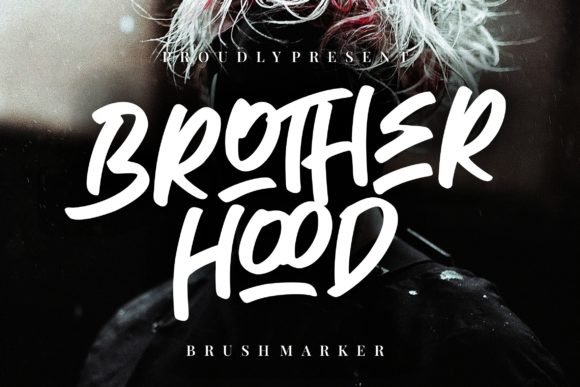
The Brotherhood Font: A Cool Brushed Display Font for Your Creative Projects
Have you ever been in the middle of a design project, and suddenly, you’re stuck on finding the perfect font? I recall a recent experience where I was working on a casual, urban-themed branding project for a local skate shop. The client wanted a font that was adaptable, cool, and had a bit of an edgy vibe. After scouring through numerous font libraries, I stumbled upon the Brotherhood font, and it instantly became the perfect fit.
A Personal Review of Brotherhood Font
What I Love About Brotherhood Font
• ✨ Urban and Adaptable: Brotherhood font has an urban, casual vibe that fits perfectly with modern designs. Its adaptability makes it suitable for various creative projects, from branding to social media graphics.
• ✅ PUA Encoded: The font is PUA encoded, which means you can easily access all the glyphs and swashes. This feature is a game-changer for designers who want to add a personal touch to their work.
• 💥 Brushed Display Style: The font’s brushed display style gives it a unique, hand-crafted feel that’s perfect for adding a touch of personality to your designs.
While Brotherhood font is an excellent choice for many projects, there are a few minor quirks to be aware of:
• 🤔 Limited Formality: As a brushed display font, Brotherhood may not be the best choice for formal or professional projects that require a more traditional look.
• ⚠️ Legibility at Small Sizes: Like many display fonts, Brotherhood may not be legible at very small sizes. It’s best used at larger sizes where its unique style can shine.
The Backstory Behind Brotherhood Font
The Brotherhood font was designed with the urban, creative community in mind. Its creator aimed to craft a font that would be both adaptable and stylish, perfect for modern designs that require a bit of an edge. While the exact story behind the font’s creation is unclear, it’s evident that Brotherhood font was designed to inspire creativity and self-expression.
Q: What type of projects is Brotherhood font best suited for?
A: Brotherhood font is ideal for casual, urban-themed projects such as branding, social media graphics, posters, and flyers.